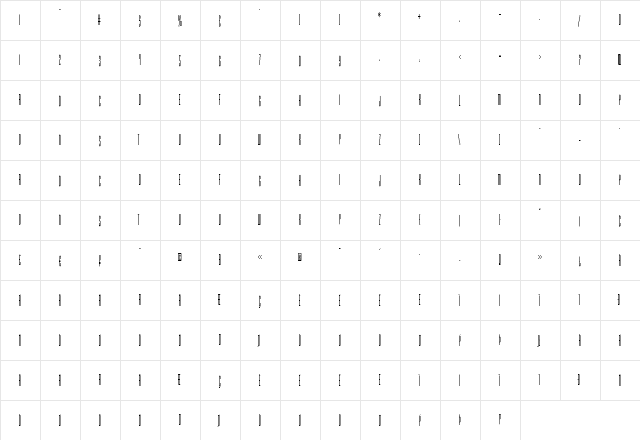
MacroscopicC Regular
Design Context for MacroscopicC Typeface
MacroscopicC offers clean, dependable letterforms without strong stylistic allegiance, making it a practical choice for designers who need flexibility.